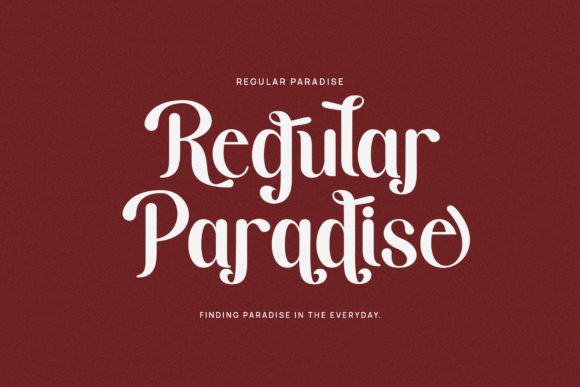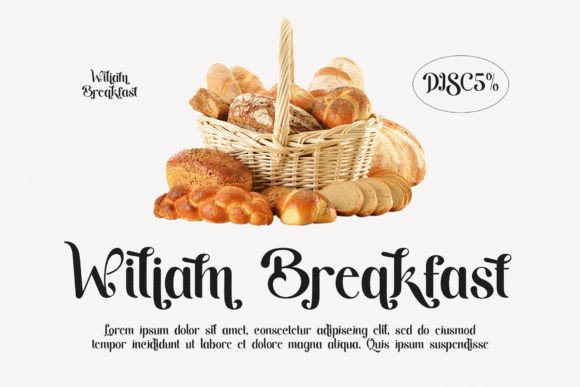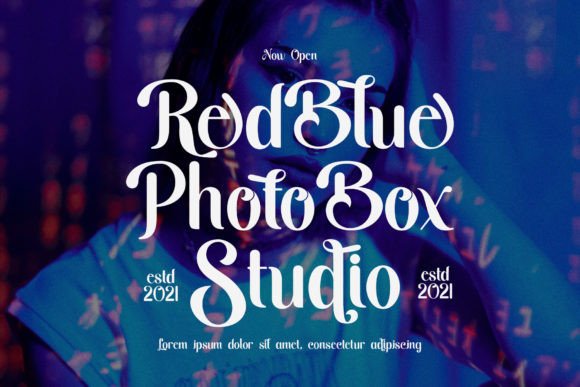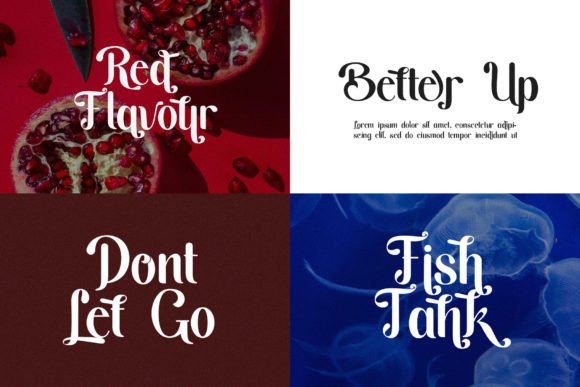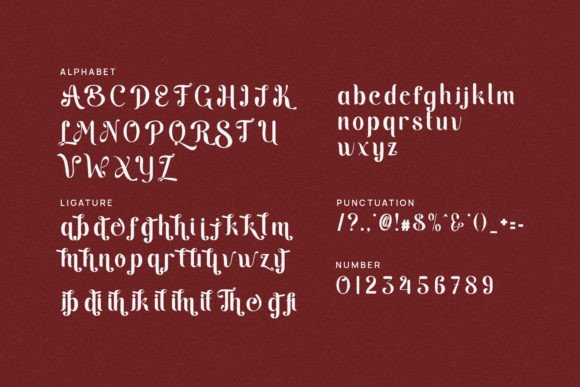
Bikne Font: Elevate Your Designs with Elegance and Luxury
In the world of design, typography plays a crucial role in conveying the tone and aesthetic of a brand or project. For designers and crafters seeking to add a touch of sophistication and refinement to their work, the Bikne Font is an exceptional choice. This elegant and classy serif font is specifically designed to bring luxury and high-end quality to various design applications.
The Essence of Bikne Font
Bikne Font is a masterpiece of typographic design, crafted with meticulous attention to detail to ensure a high level of legibility and readability. Its serif structure adds a classic touch, reminiscent of traditional luxury brands and high-end publications. This font is not just a simple collection of letters; it’s a design element that can elevate the entire visual identity of a project.
One of the standout features of the Bikne Font is its versatility. Whether you’re working on branding projects, logos, social media posts, advertisements, labels, product packaging, photography, wedding designs, watermarks, invitation product designs, stationery, or any other high-level design project, this font is incredibly suitable. Its elegant and luxurious feel can add a professional and sophisticated touch to any design, making it instantly more compelling and engaging.
Branding and Logos
For branding and logo designs, establishing a strong and memorable visual identity is paramount. The Bikne Font, with its elegant serifs and luxurious feel, can help create a lasting impression. It’s perfect for brands aiming to convey a sense of sophistication, elegance, and high quality.
Digital and Print Media
In digital and print media, such as social media posts, advertisements, and product packaging, standing out is crucial. The Bikne Font can help achieve this by adding a classy and refined touch to any content, making it more appealing to the audience.
Special Occasions and Events
For special occasions like weddings, or events requiring elegant and sophisticated designs, the Bikne Font proves to be an excellent choice. Its luxurious feel can add a personal touch to wedding designs, watermarks, invitation product designs, and stationery, making them truly memorable.
Why Choose Bikne Font?
There are several reasons why designers and crafters should consider the Bikne Font for their projects:
- Elegance and Luxury: It embodies elegance and luxury, making any design project stand out.
- High Legibility: Designed with high legibility in mind, ensuring that messages are conveyed clearly and effectively.
- Versatility: Suitable for a wide range of design applications, from branding and logos to digital content and print materials.
- Classic yet Modern: Offers a perfect blend of classic serif elements with a modern aesthetic appeal.
The Bikne Font is a powerful design tool for anyone looking to infuse their projects with elegance, luxury, and sophistication. Its versatility, combined with its classic yet modern appeal, makes it an ideal choice for a myriad of design applications. Whether you’re a professional designer or a crafter, incorporating the Bikne Font into your work can significantly elevate its visual appeal and impact. With this font, you can create stunning designs that are not only aesthetically pleasing but also convey a sense of high quality and refinement.
In a world where design is king, and first impressions are everything, choosing the right typography can make all the difference. The Bikne Font offers a unique opportunity to do just that – make a memorable impression with elegance and luxury. So, why settle for ordinary when you can create something truly extraordinary with the Bikne Font?